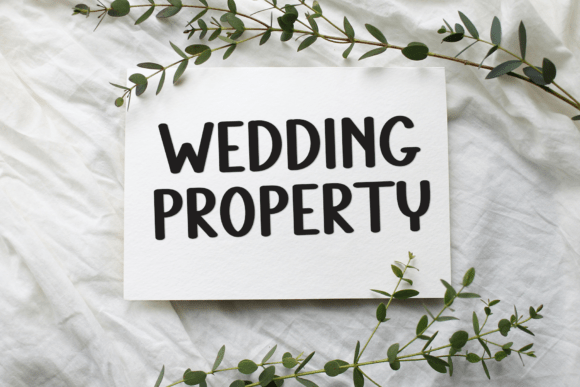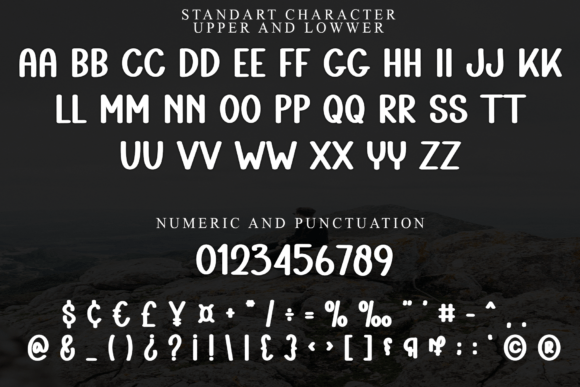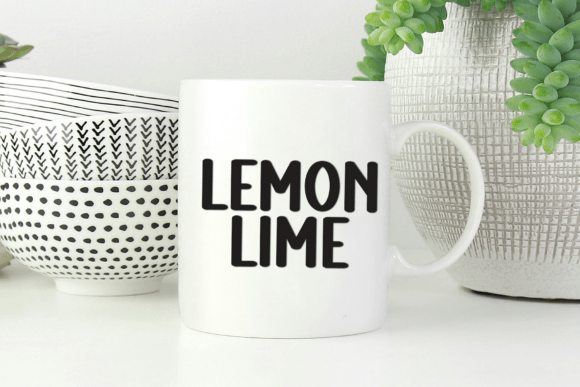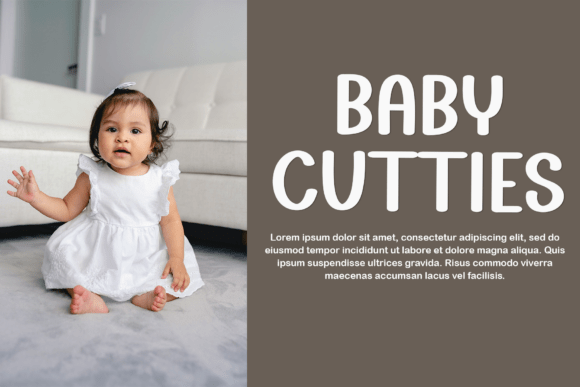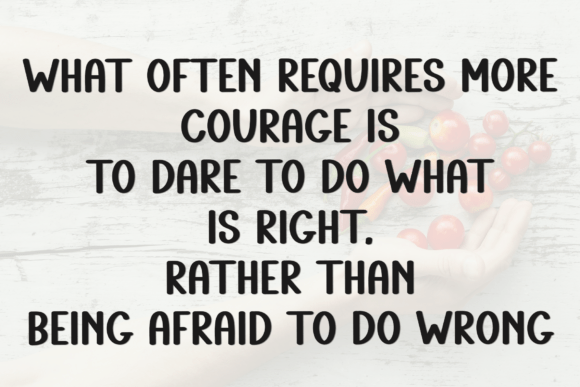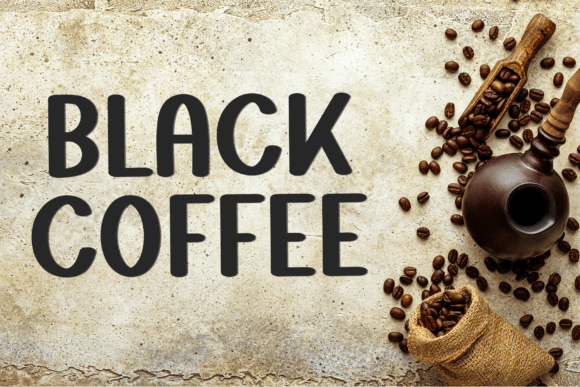
Easter Modern Font: The Perfect Addition to Your Design Collection
Are you looking for a font that can add a touch of sweetness and friendliness to your designs? Look no further than Easter Modern Font! This beautiful handwritten font is perfect for designers and crafters who want to create unique and eye-catching projects. In this article, we’ll take a closer look at Easter Modern Font and explore its features, benefits, and uses.
What is Easter Modern Font?
Easter Modern Font is a sweet and friendly handwritten font that is perfect for a wide range of designs. Its natural and unique style makes it incredibly fitting to a large pool of designs, from Easter-themed projects to everyday crafts. The font’s playful and whimsical feel is sure to capture the attention of your audience and leave a lasting impression.
Key Features of Easter Modern Font
- Handwritten style: Easter Modern Font has a beautiful handwritten style that gives it a personal and unique touch.
- Sweet and friendly: The font’s sweet and friendly feel makes it perfect for designs that require a playful and approachable tone.
- Natural and unique: Easter Modern Font’s natural and unique style makes it incredibly versatile and suitable for a wide range of designs.
- Easy to read: Despite its playful feel, Easter Modern Font is easy to read and understand, making it perfect for body text and headings.
Benefits of Using Easter Modern Font
So, why should you choose Easter Modern Font for your designs? Here are just a few benefits of using this beautiful font:
- Adds a personal touch: Easter Modern Font’s handwritten style adds a personal touch to your designs, making them more relatable and engaging.
- Perfect for Easter-themed designs: As its name suggests, Easter Modern Font is perfect for Easter-themed designs, from Easter egg hunt flyers to Easter-themed party invitations.
- Versatile: Easter Modern Font is incredibly versatile and can be used for a wide range of designs, from crafts to digital projects.
Uses of Easter Modern Font
Easter Modern Font is perfect for a wide range of designs, including:
- Easter-themed designs: Easter Modern Font is perfect for Easter-themed designs, from Easter egg hunt flyers to Easter-themed party invitations.
- Crafts: Easter Modern Font is perfect for crafters who want to add a personal touch to their projects, from scrapbooking to card making.
- Digital projects: Easter Modern Font is perfect for digital projects, from social media graphics to blog posts.
- Wedding and party designs: Easter Modern Font’s sweet and friendly feel makes it perfect for wedding and party designs, from wedding invitations to party flyers.
Tips for Using Easter Modern Font
Here are a few tips for using Easter Modern Font:
- Use it with contrasting colors: Easter Modern Font looks best when paired with contrasting colors that make it stand out.
- Experiment with different sizes: Easter Modern Font can be used at a variety of sizes, from small body text to large headings.
- Pair it with other fonts: Easter Modern Font can be paired with other fonts to create a unique and eye-catching design.
Easter Modern Font is a beautiful and versatile font that is perfect for designers and crafters who want to add a touch of sweetness and friendliness to their designs. Its natural and unique style makes it incredibly fitting to a large pool of designs, and its easy-to-read feel makes it perfect for body text and headings. Whether you’re creating Easter-themed designs or everyday crafts, Easter Modern Font is the perfect addition to your design collection.